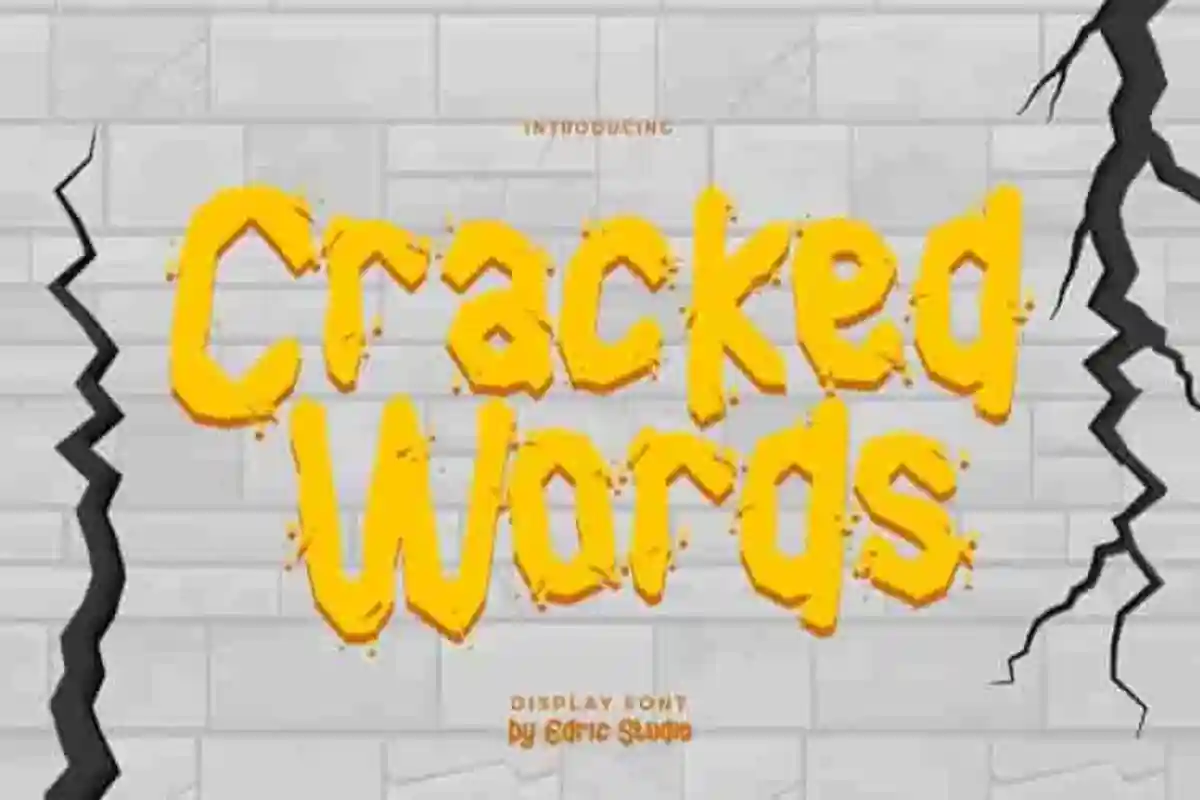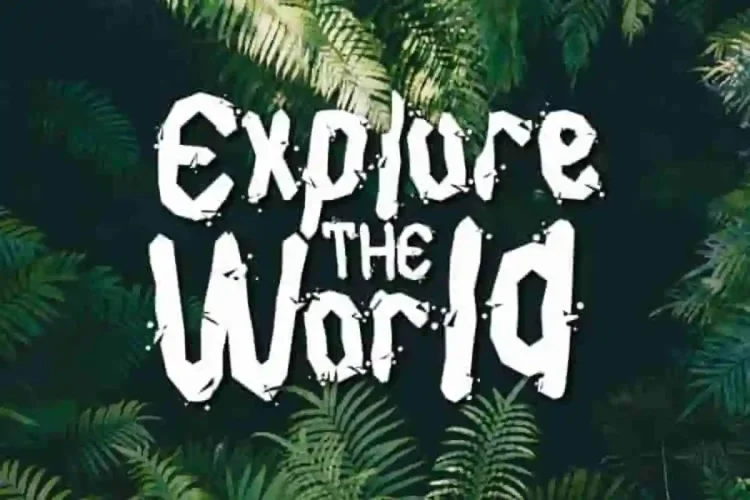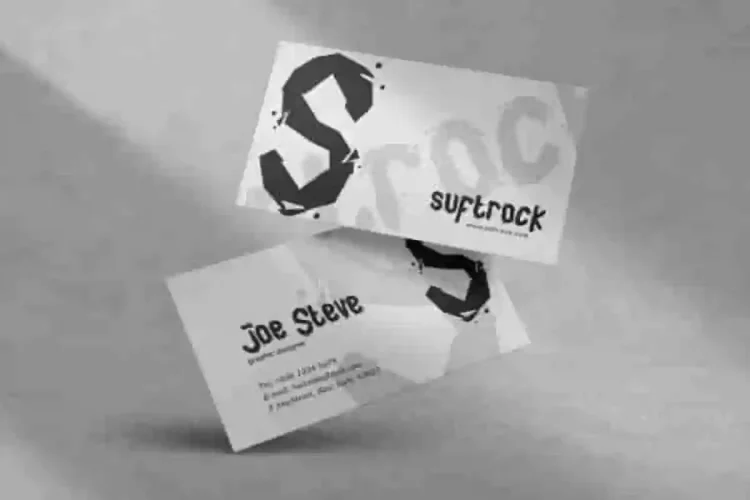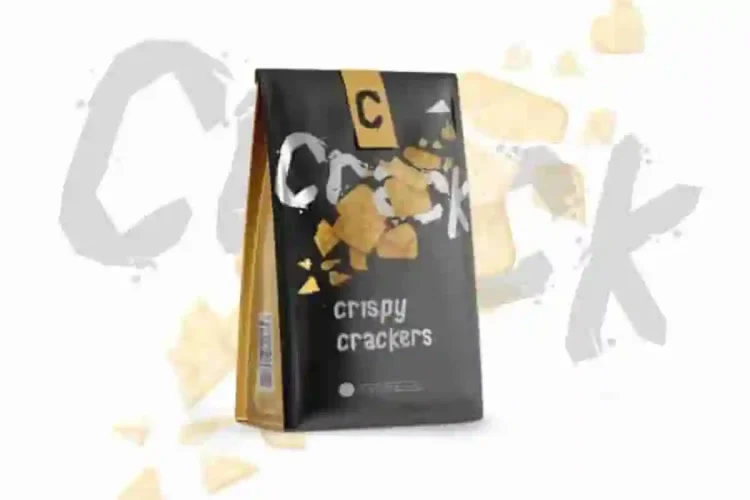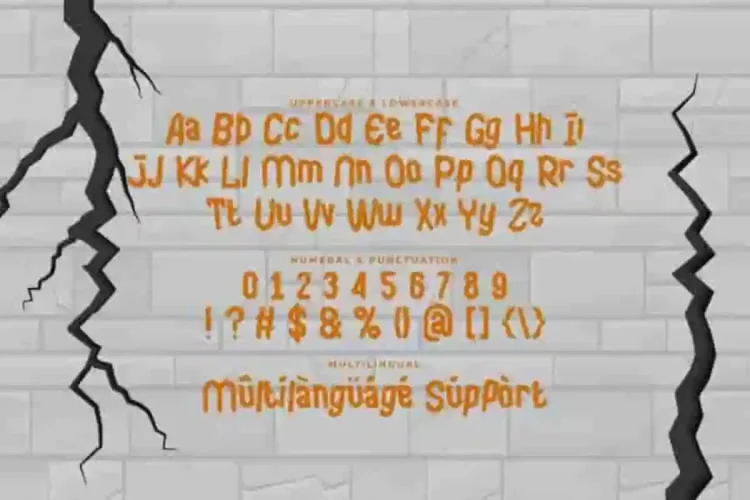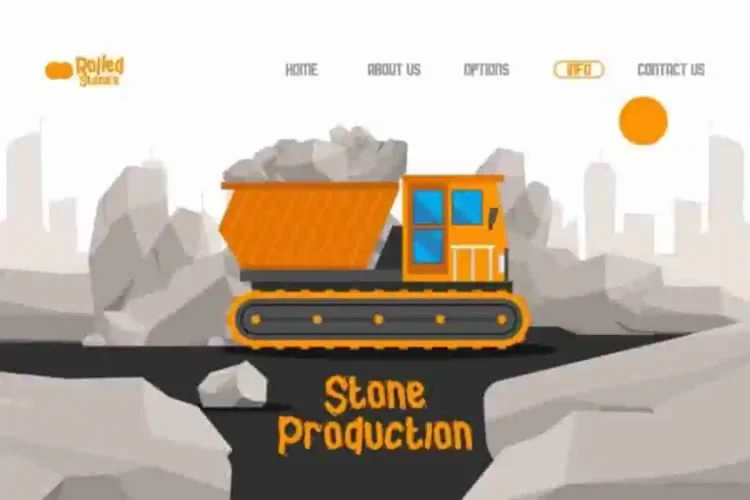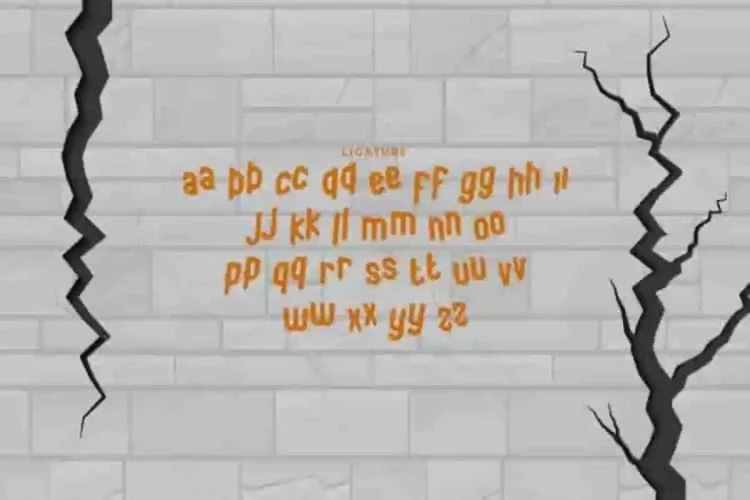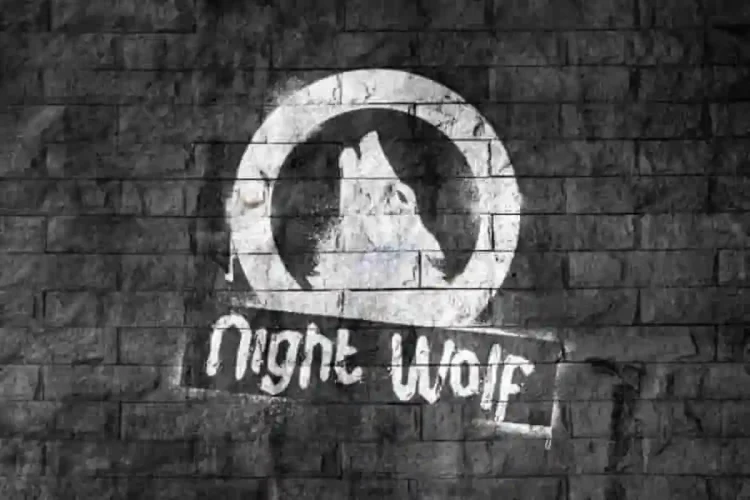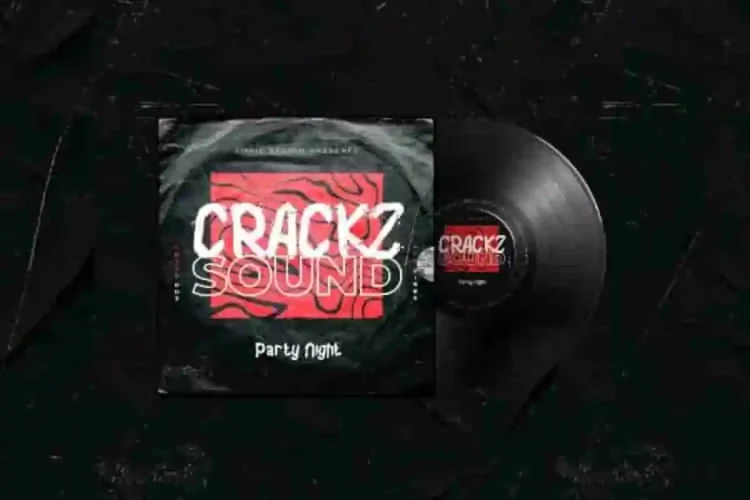
Cracked Words Display Font
Cracked Words Display Font a handcrafted display font designed with a unique stone-cracked style. This font has a stunning characters set, perfectly managed with well spaced and kerning. The theme style of this font will horror, movie, games, vintage and classic brush style. Its cracked details and strong character set create an unforgettable impression that instantly grabs attention.
Cracked Words Display Font will be great for any projects including : brandings, signage, flyer, brochure etc. Almost all industries will be match for this typeface: events, comic, horror, mysterious, cartoon, musician, magician etc.